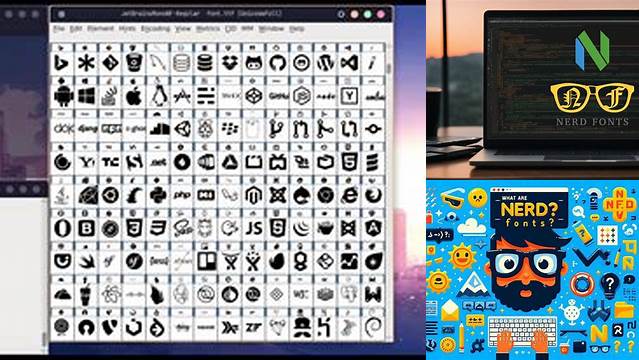
Nerd Fonts In Neovim: A Practical Setup Guide
So, you want to spice up your Neovim setup with some awesome Nerd Fonts, huh? Well, you've come to the right place! This guide will walk you through everything you need to know, from installing Nerd Fonts to configuring Neovim to use them properly. Let's dive in!
1. What are Nerd Fonts?
Nerd Fonts are basically regular fonts that have been patched to include a bunch of extra glyphs, icons, and symbols. These are super useful for customizing your terminal and Neovim, allowing you to display things like file type icons, Git status indicators, and more. They make your coding environment not only more functional but also way more visually appealing.
Why Use Nerd Fonts?
Using Nerd Fonts can dramatically improve your Neovim experience. Imagine being able to instantly recognize file types by their icons in your file explorer, or seeing the Git status of your code right in the status line. These little visual cues can boost your productivity and make coding a lot more enjoyable. Plus, let's be honest, a beautifully customized Neovim setup just looks cool.
Types of Glyphs Included
Nerd Fonts come packed with glyphs from various popular icon sets like Font Awesome, Devicons, Octicons, and more. This means you have a massive library of symbols at your fingertips. Whether you need icons for different programming languages, version control systems, or even just some fancy arrows and separators, Nerd Fonts have got you covered. The sheer variety of glyphs allows for endless customization possibilities, letting you tailor your Neovim interface to perfectly match your workflow and aesthetic preferences. The inclusion of weather symbols and other miscellaneous icons also opens up possibilities for integrating system information directly into your editor, giving you a heads-up display of sorts.
Popular Nerd Fonts Options
There are tons of Nerd Fonts to choose from, each with its own unique style and features. Some popular options include:
- Fira Code Nerd Font: A monospaced font with ligatures and a clean, readable design.
- Hack Nerd Font: Another excellent monospaced font known for its versatility and clarity.
- Iosevka Nerd Font: A highly customizable font with a wide range of weights and styles.
- Meslo Nerd Font: A popular choice for its rounded characters and good readability.
Choosing the right Nerd Font often comes down to personal preference. It's a great idea to try out a few different options to see which one looks best in your terminal and works well with your Neovim setup. Factors to consider might include the legibility of individual characters, the clarity of the patched glyphs, and the overall aesthetic appeal of the font. Many users also prefer fonts that have built-in support for ligatures, which can make code appear more readable and visually pleasing.
Installation on macOS
On macOS, you can install Nerd Fonts by simply opening the font files and clicking the “Install Font” button in Font Book. Alternatively, you can use Homebrew:
- Download the Nerd Font of your choice.
- Open the font files in Finder.
- Click “Install Font” in Font Book.
Or, using Homebrew:
brew tap homebrew/cask-fonts
brew install font-
Replace `` with the name of the font you want to install (e.g., font-fira-code-nerd-font).
Installation on Windows
On Windows, you can install Nerd Fonts by right-clicking the font files and selecting “Install”. You can also copy the font files to the C:\Windows\Fonts directory.
- Download the Nerd Font of your choice.
- Right-click the font files and select “Install”.
Alternatively:
- Copy the font files to the
C:\Windows\Fontsdirectory.
After installing the font, you might need to restart your terminal or Neovim for the changes to take effect. It's also a good idea to clear the font cache if you encounter any issues with font rendering.
3. Configuring Your Terminal
Before you can use Nerd Fonts in Neovim, you need to make sure your terminal is set up to use them. This usually involves changing your terminal’s font settings.
Changing Terminal Font Settings
Most terminals allow you to customize the font used for displaying text. You'll need to select the Nerd Font you installed as your terminal's font. The exact steps for doing this will vary depending on which terminal emulator you're using.
For example, in iTerm2 on macOS, you can go to Preferences -> Profiles -> Text and change the font under the Font section. In other terminals, the settings might be located in a similar place, usually under the